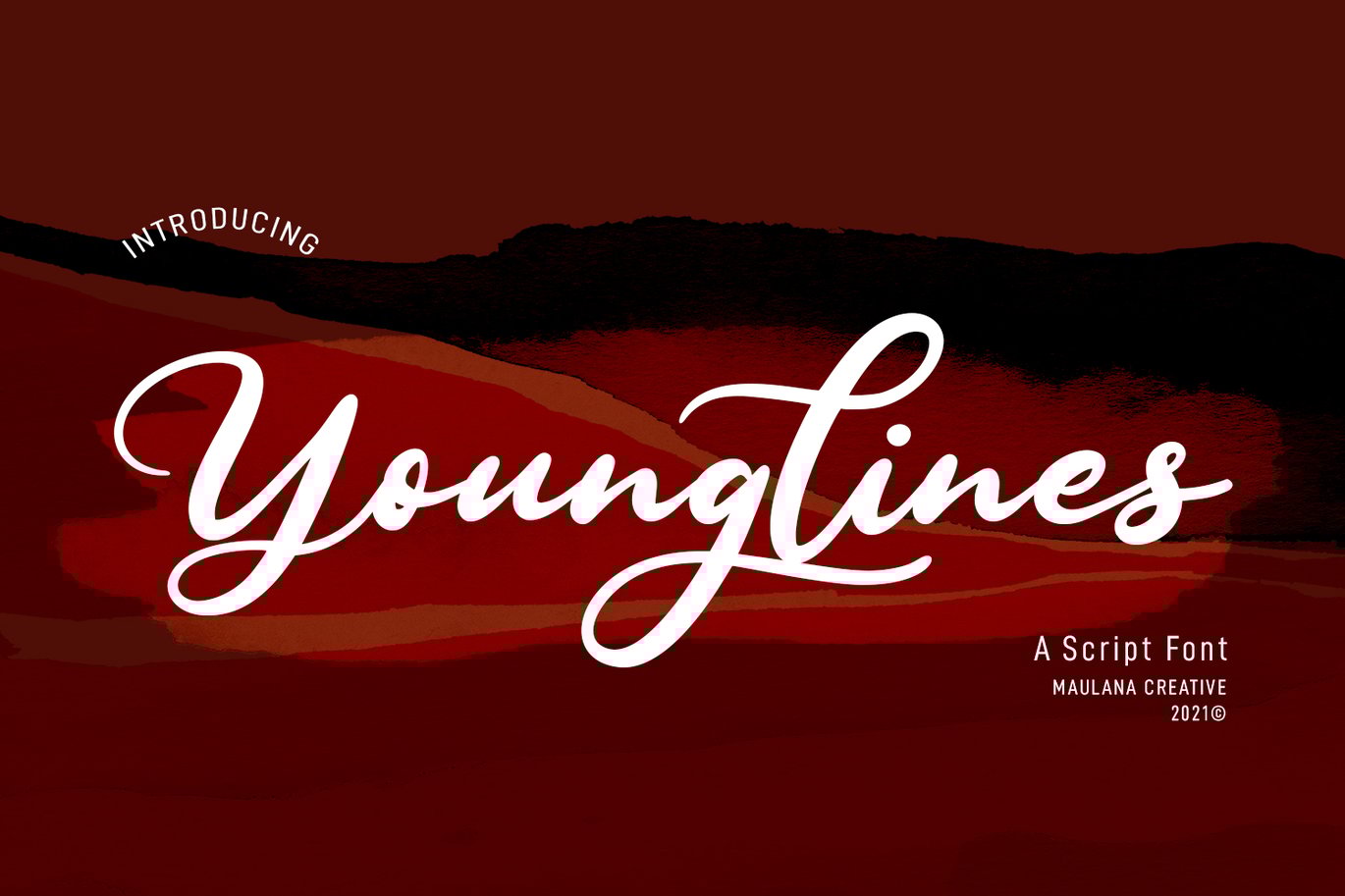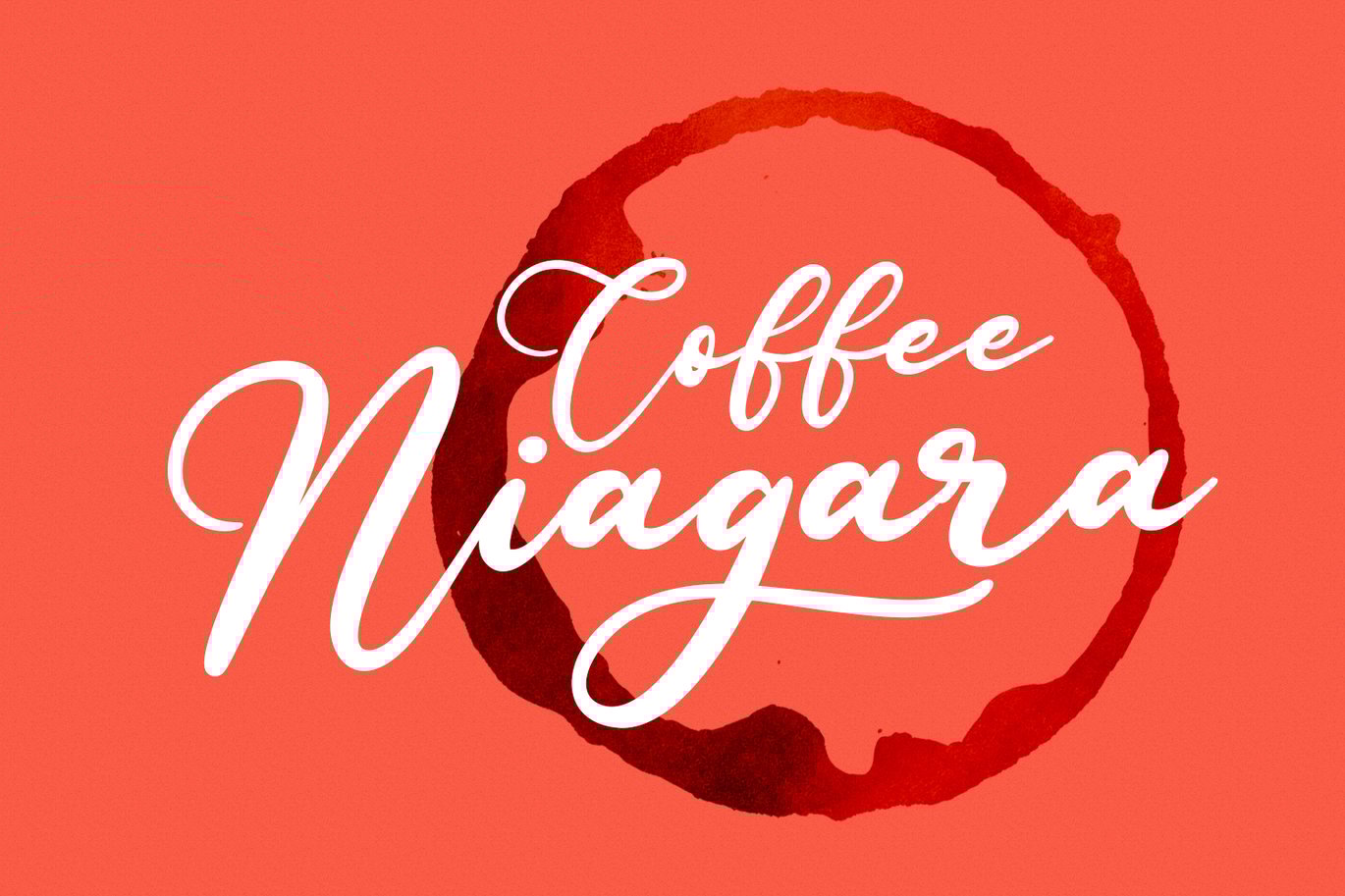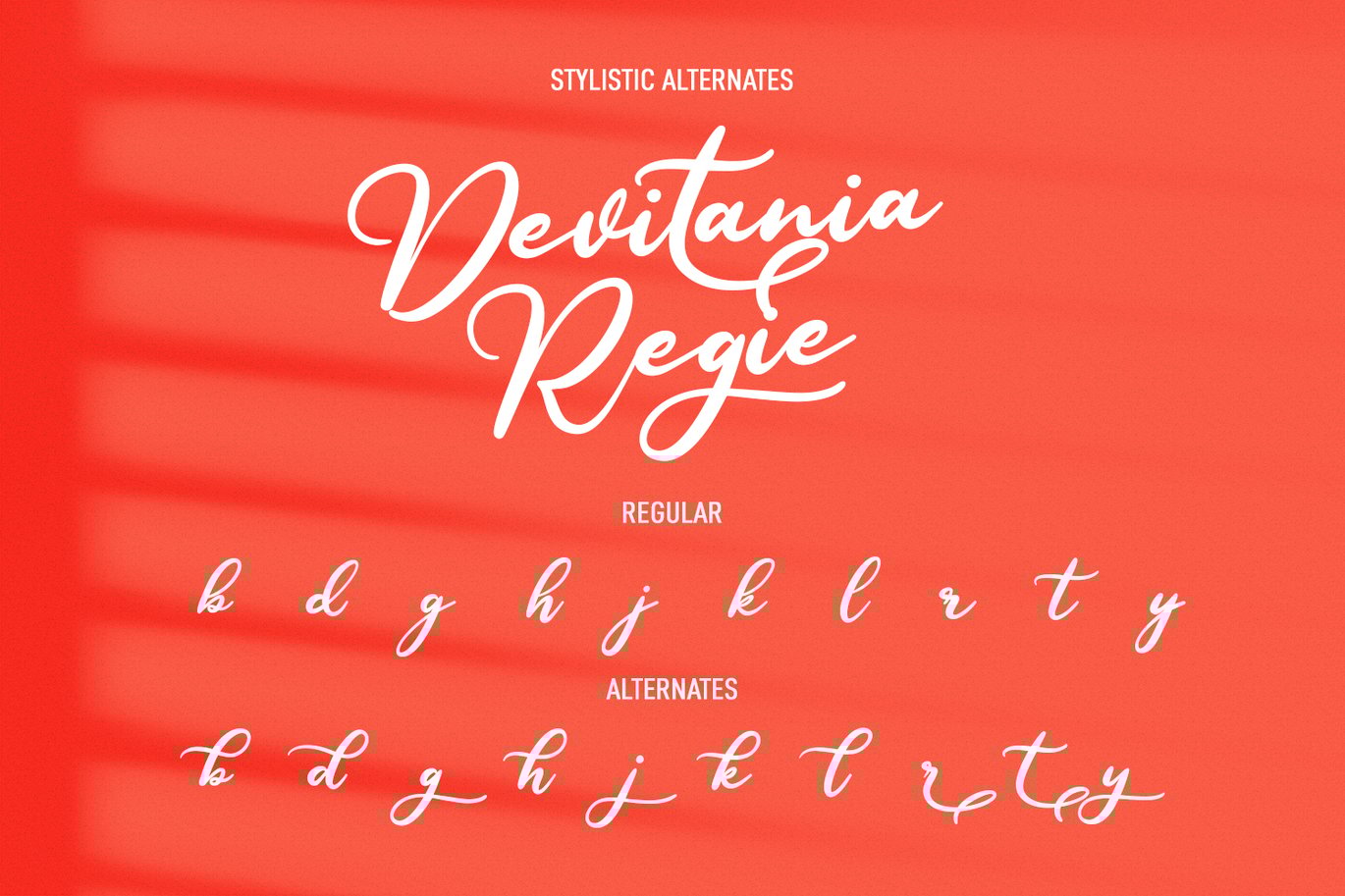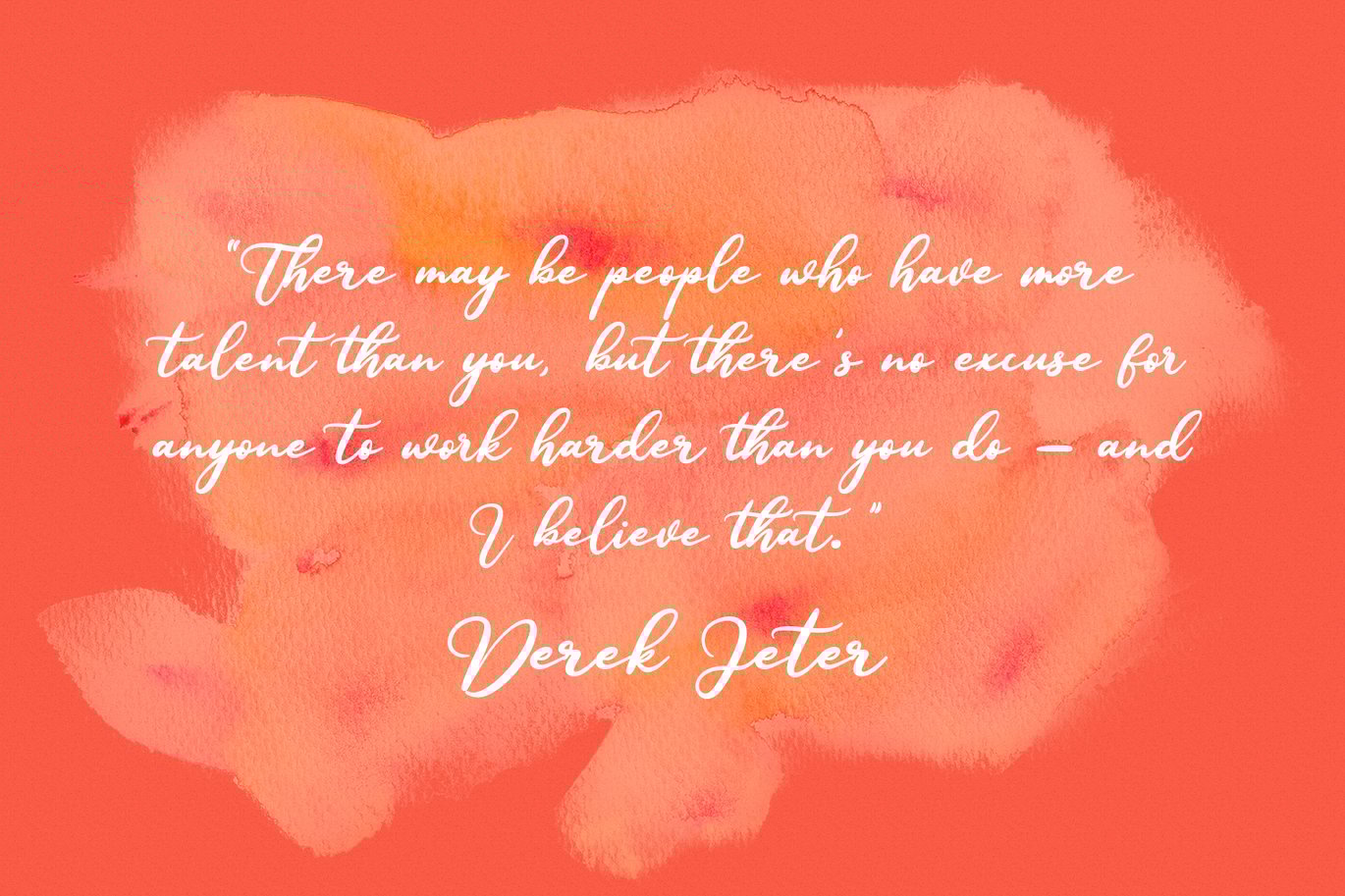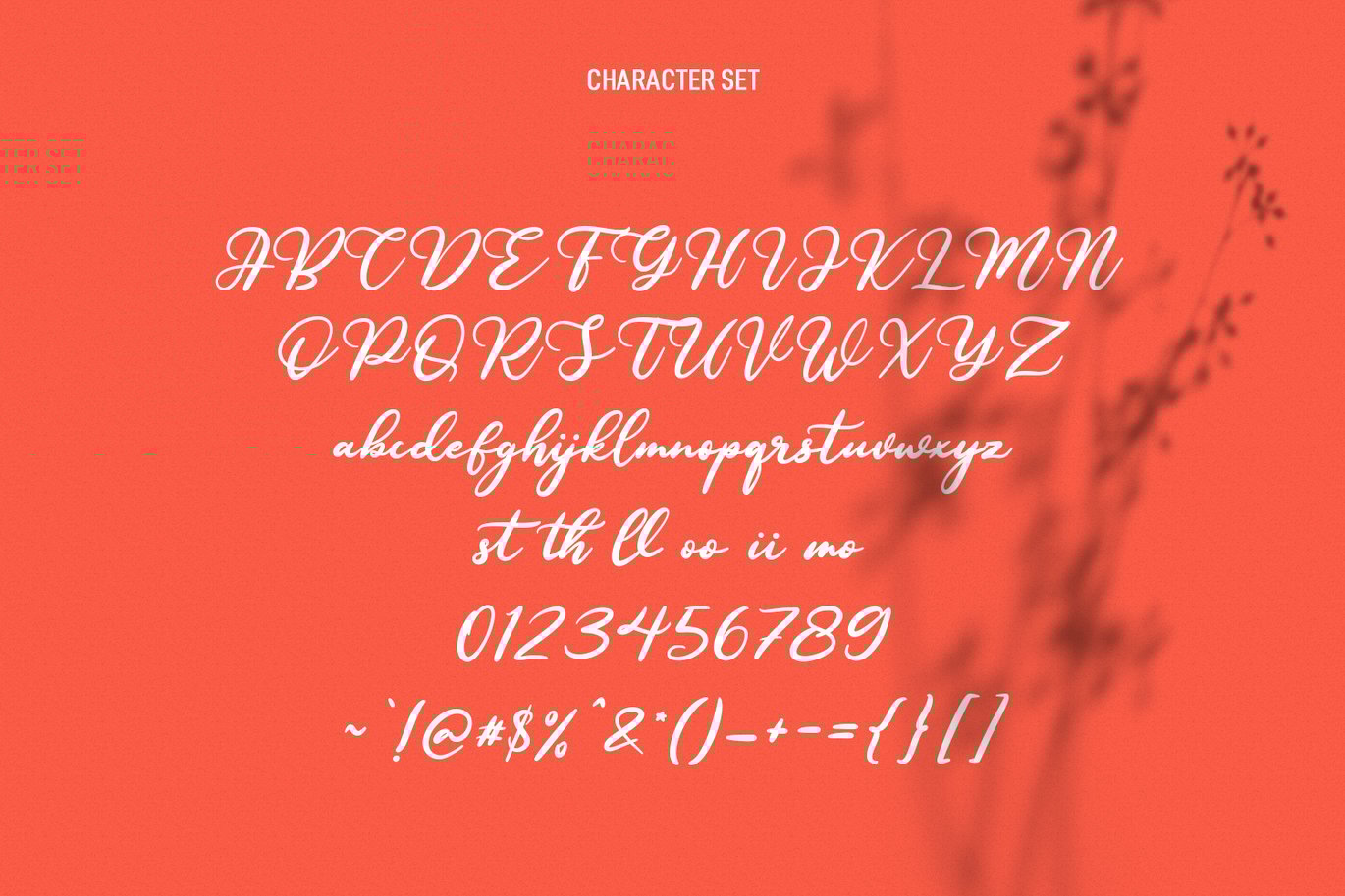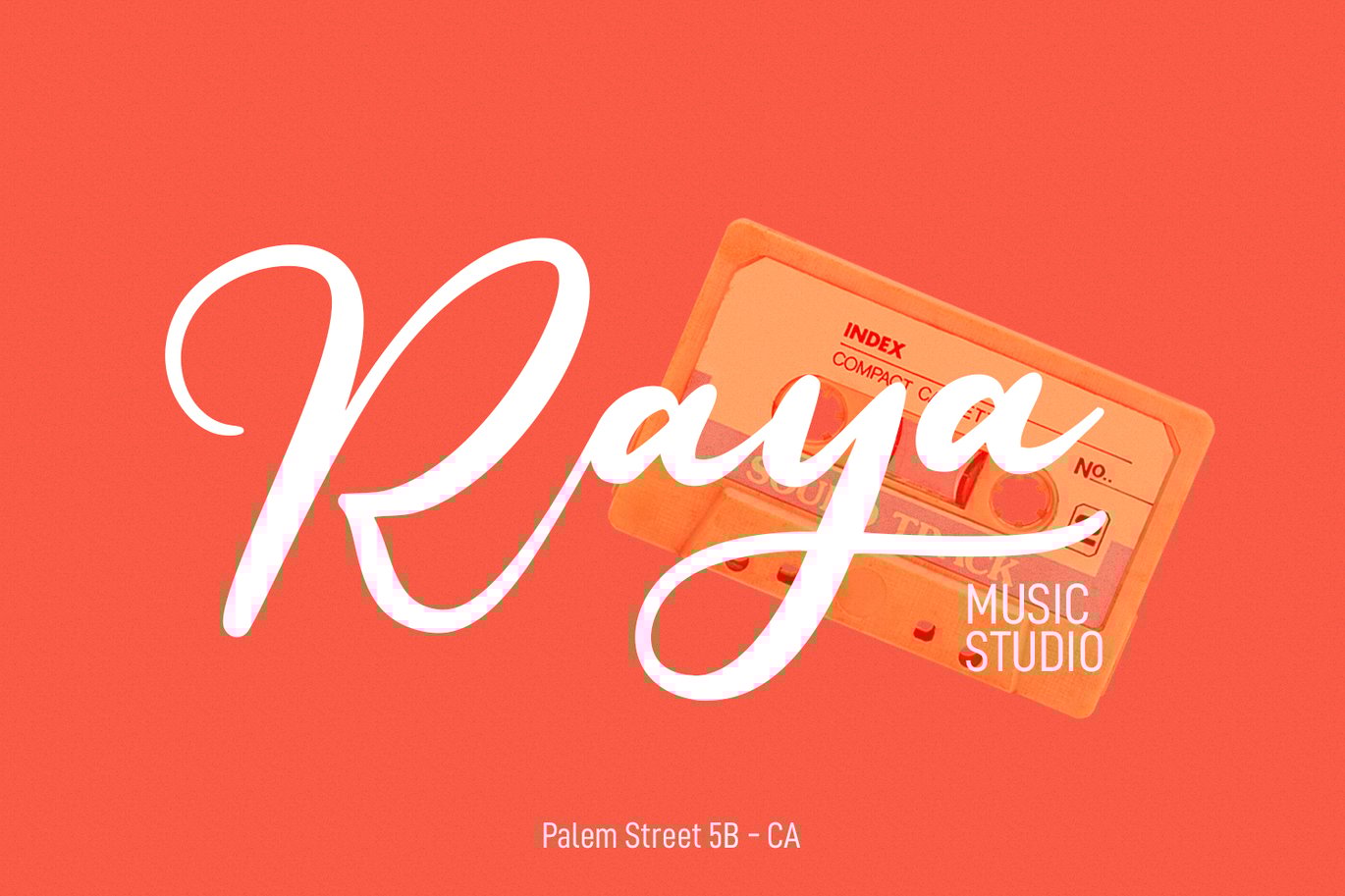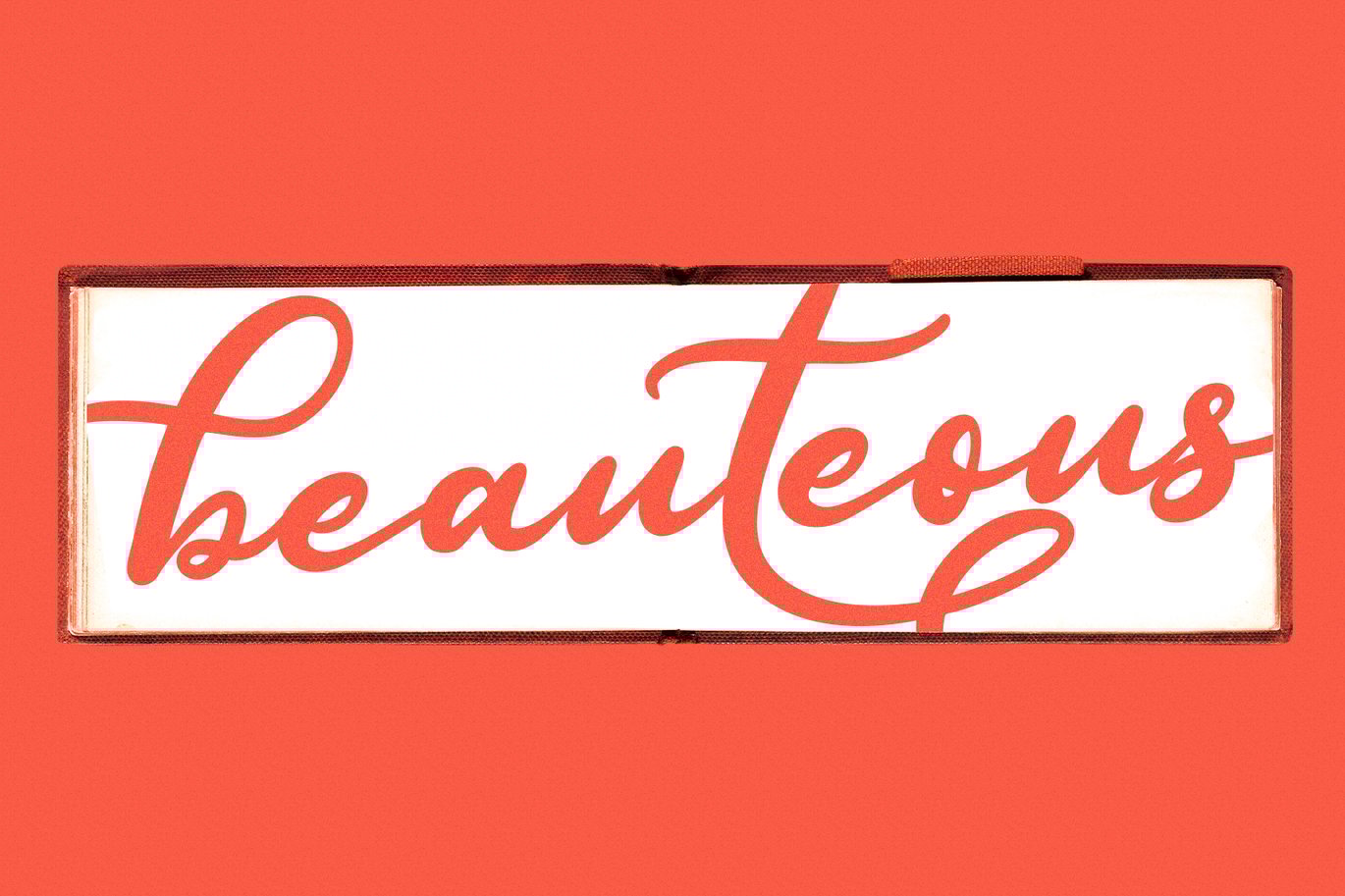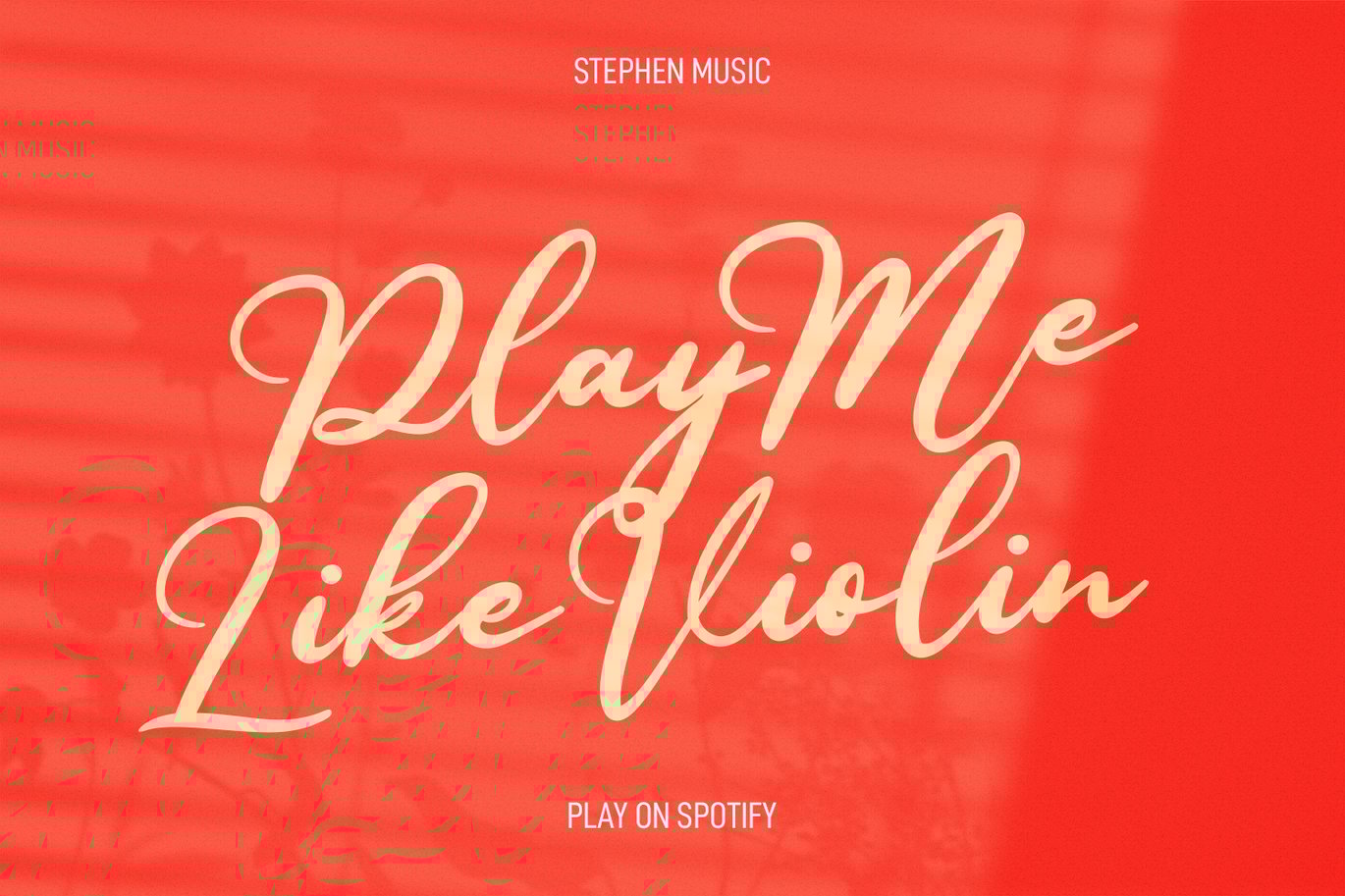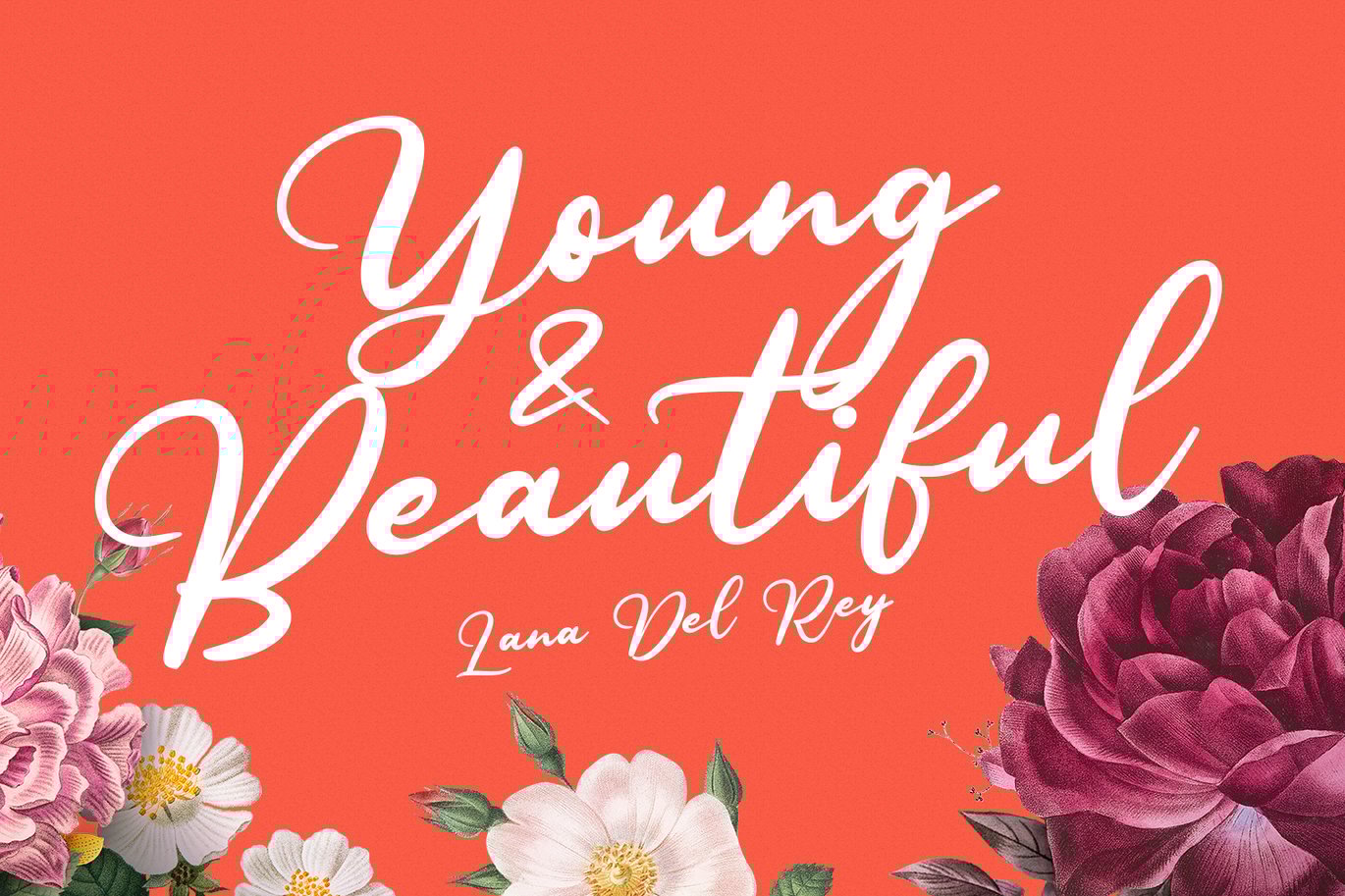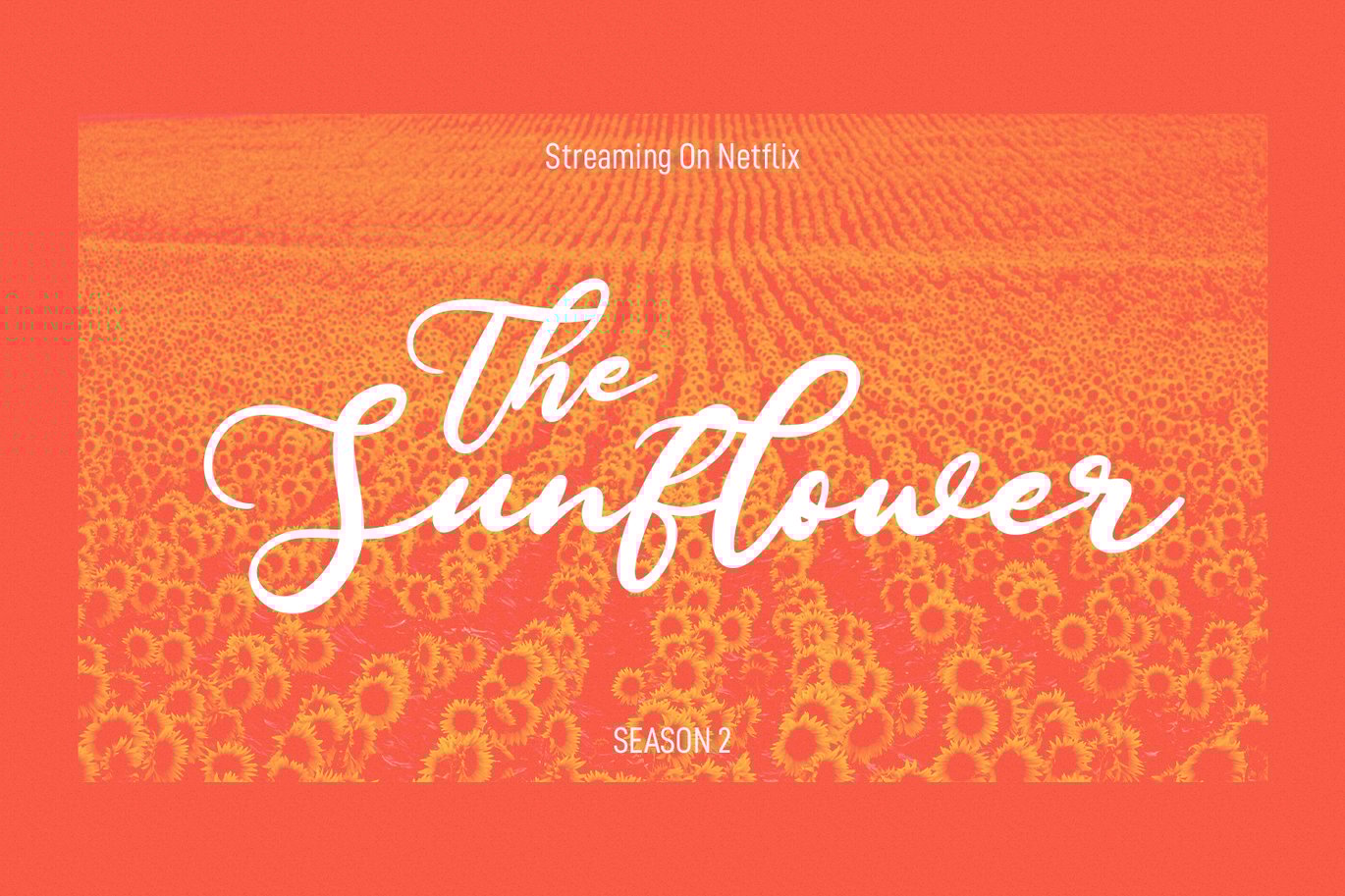
Younglines Script Font
Younglines is a cursive script font. With contrast bold stroke, slanted and fun character with a bit of ligatures. To give you an extra creative work. Younglines font support multilingual more than 100+ language. This font is good for logo design, Social media, Movie Titles, Books Titles, a short text even a long text letter and good for your secondary text font with sans or serif. Make a stunning work with Younglines font.